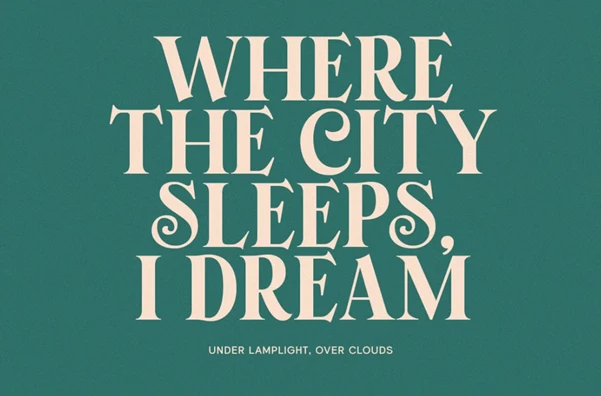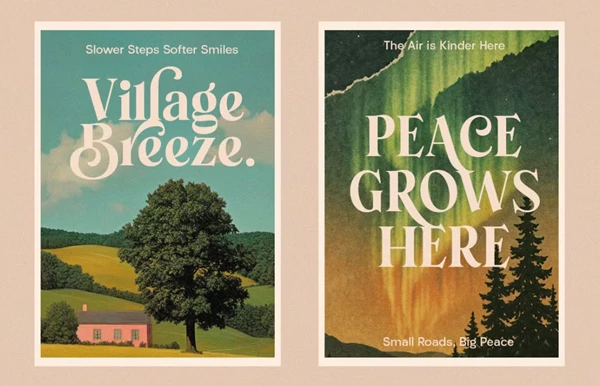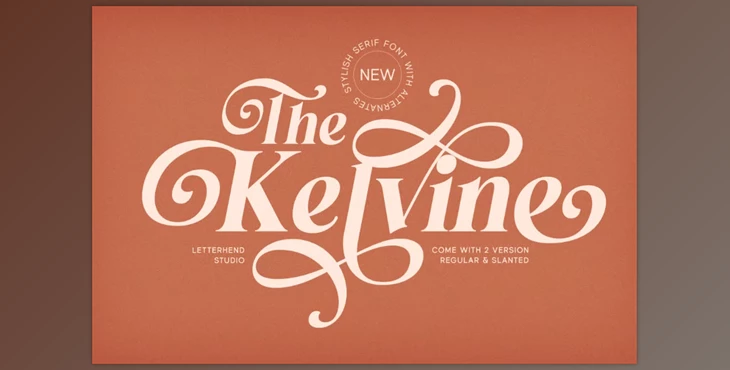
The Kelvine Font:
Kelvine Font 15 - Seriffed Fonts. With dramatic flair and bold features with elegance, Kelvine is a serif font that perfectly captures attention with its beauty. Its gentle and delicate swashes display vintage charm along with new-age aesthetics, making “sophistication” an understatement when describing this typeface. The extravagant strokes define exquisite cursive, giving room for customization. Furthermore, it adds luxurious alternates along bespoke refinement to vintage lettering style, which makes it the ideal candidate for use in emblems, wedding invites, packaging design flags, and countless items needing a polished look. Alongside its slanted version, it is available in the regular form, which allows expansive creativity.
"The Kelvine Font" Samples: